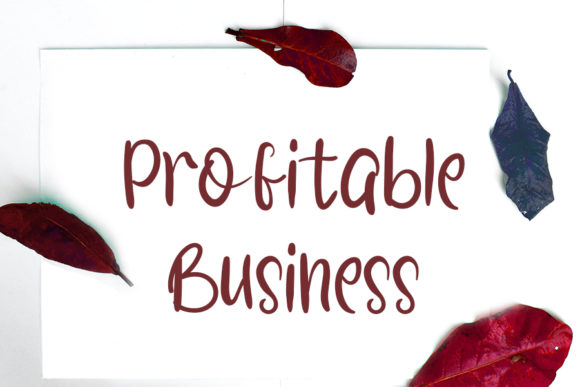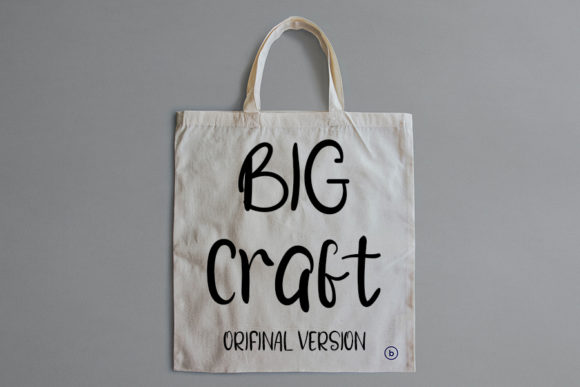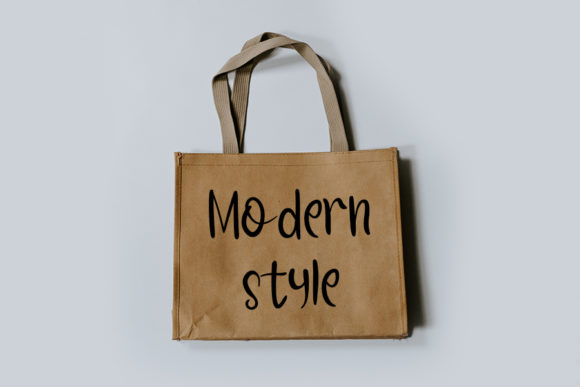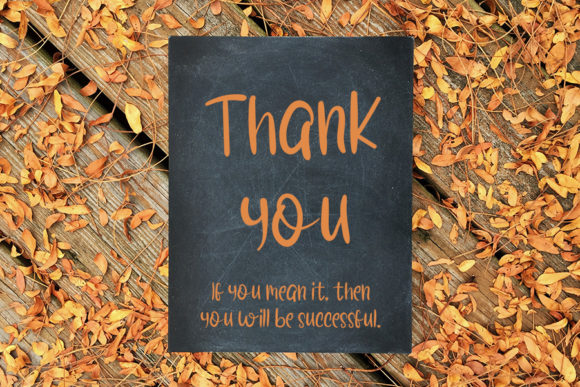
Introduction to Great Winter Font Font
Fonts play a crucial role in design, and the Great Winter Font font is a typeface that brings both character and versatility to any project. Whether you’re working on a branding project, a website, or a print design, the Great Winter Font font offers a unique style that can elevate your work.
Great Winter is a fun and quirky handwritten font.
Add this font to your creative ideas and notice how it will make them stand out .
Key Features of Great Winter Font Font
Why Choose Great Winter Font Font?
The Great Winter Font font is more than just a typeface – it’s a design tool that helps you communicate your message with style and clarity. Its unique character set and versatile design make it suitable for a wide range of applications, from elegant invitations to bold headlines.
With its carefully crafted letterforms and balanced proportions, the Great Winter Font font ensures readability and visual appeal across all mediums.
What makes Great Winter Font font special?
The Great Winter Font font stands out with its unique design, exceptional readability, and versatility across various design applications.